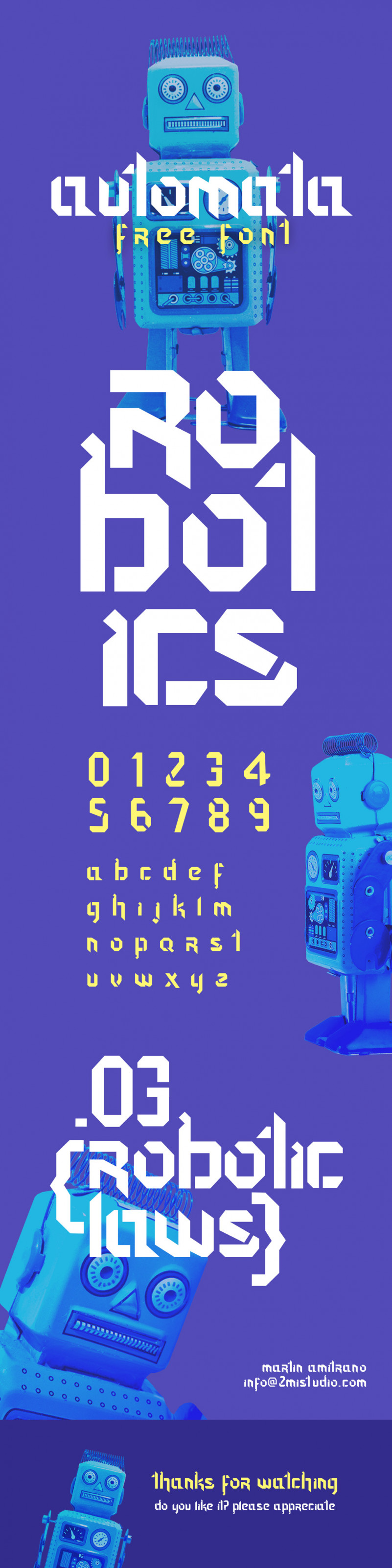
Automata Font
Automata Free Font
Automata is a geometric font, defined by a rigid grid construction, where pronounced lines and oblique cuts predominate and makes it have a great visual impact. Ideal for poster and lettering. If you’ve done fun things with it and you’d like to show me, please send me your work, I’ll love to see how creative you can be